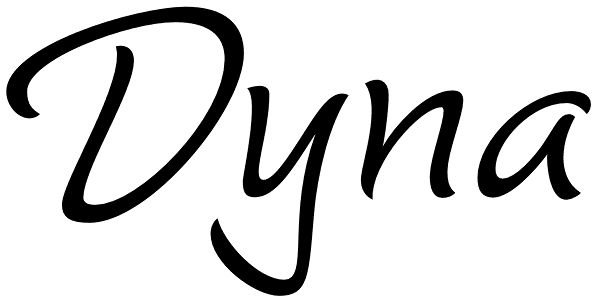
Dyna
Elena Albertoni on Dyna: “While studying in Paris, I worked for a design studio specialized in packaging. French supermarkets are full of lettering with a handwriting flavor, which seems to go very well with a wide range of very different products...